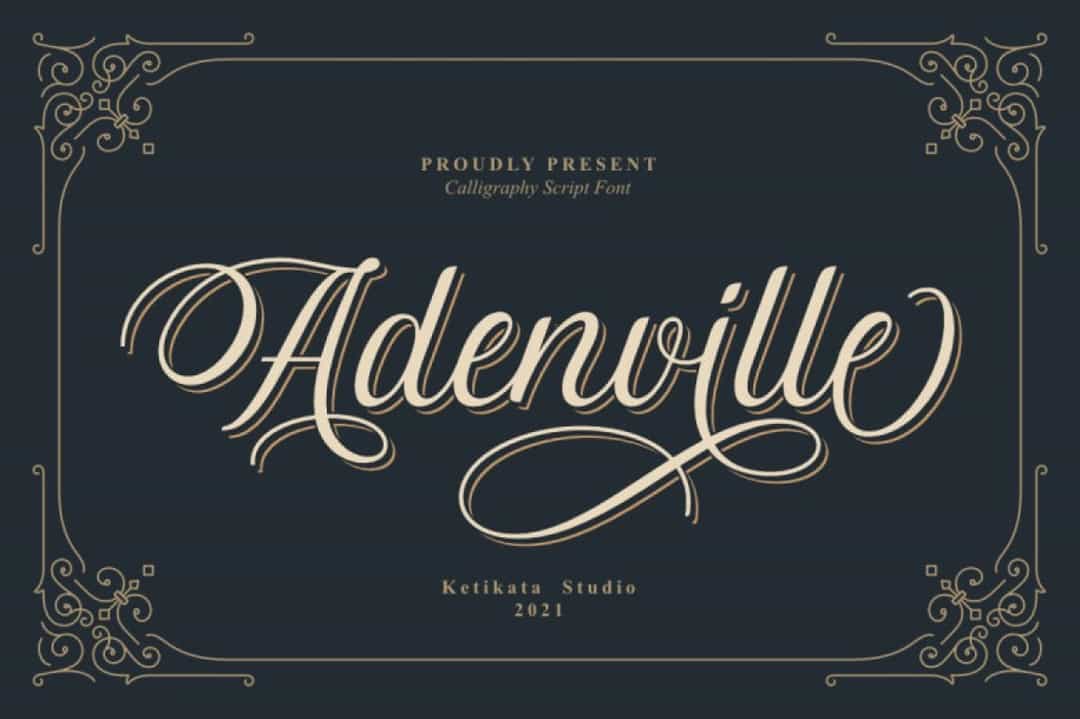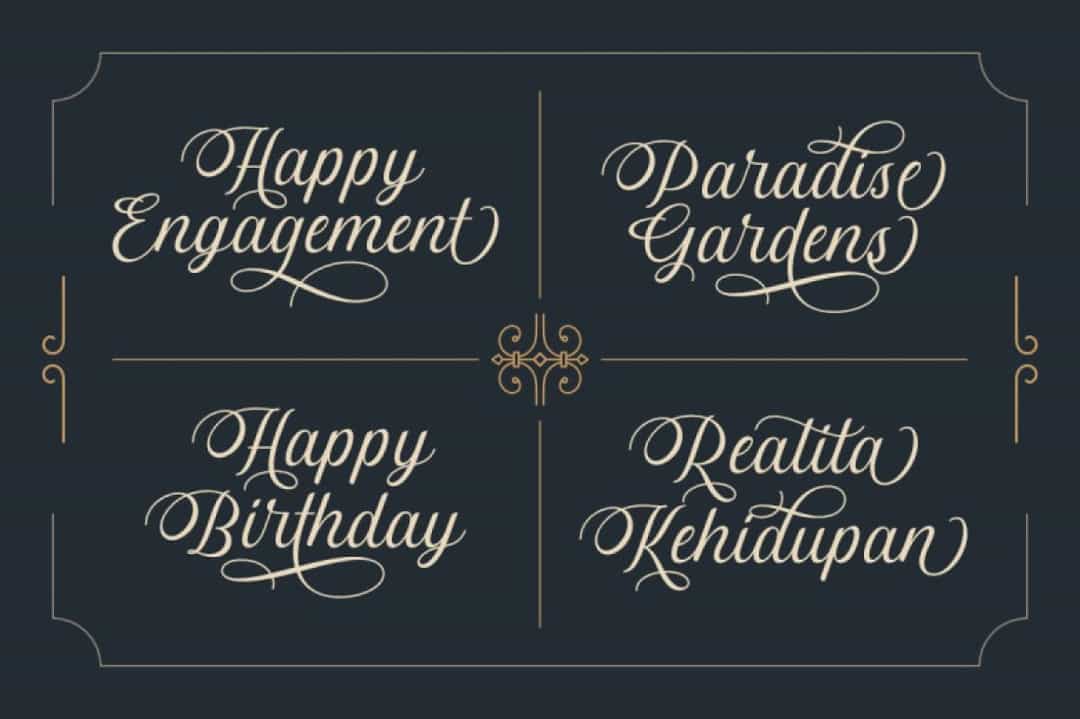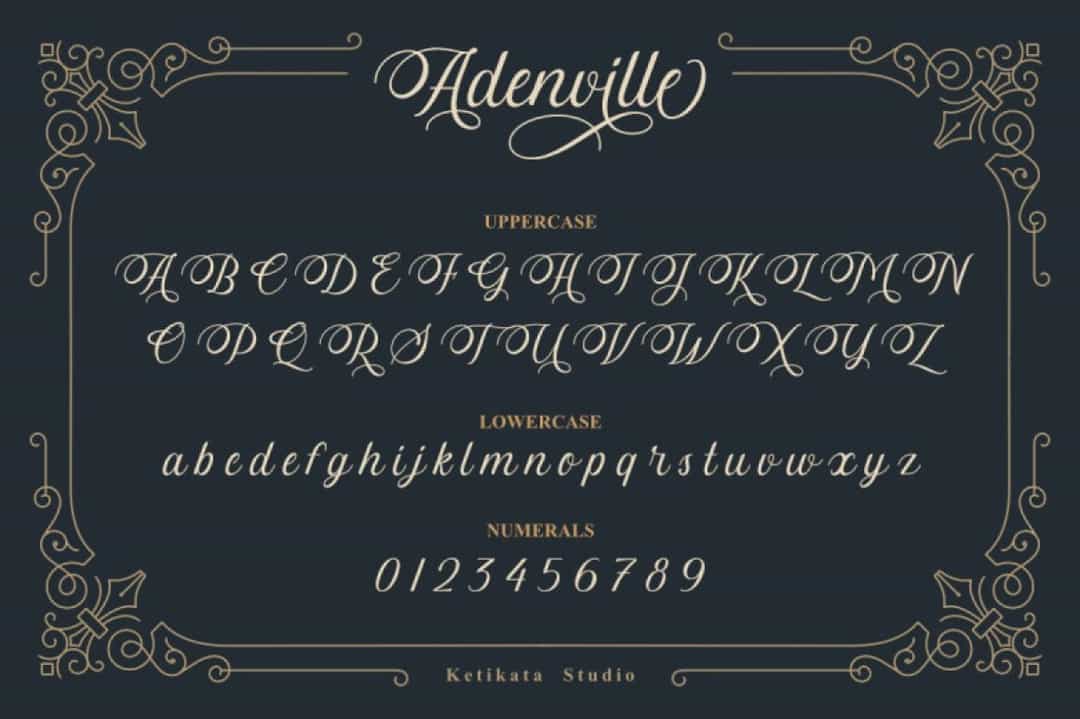
Adenville is an elegant and strong script font created with hand-written lettering for hand-lettering effect. With many stylistic variations and swashes to help create custom designs of your own, this font offers unique characteristics perfect for logotypes (Logotype) as well as other graphic requirements.